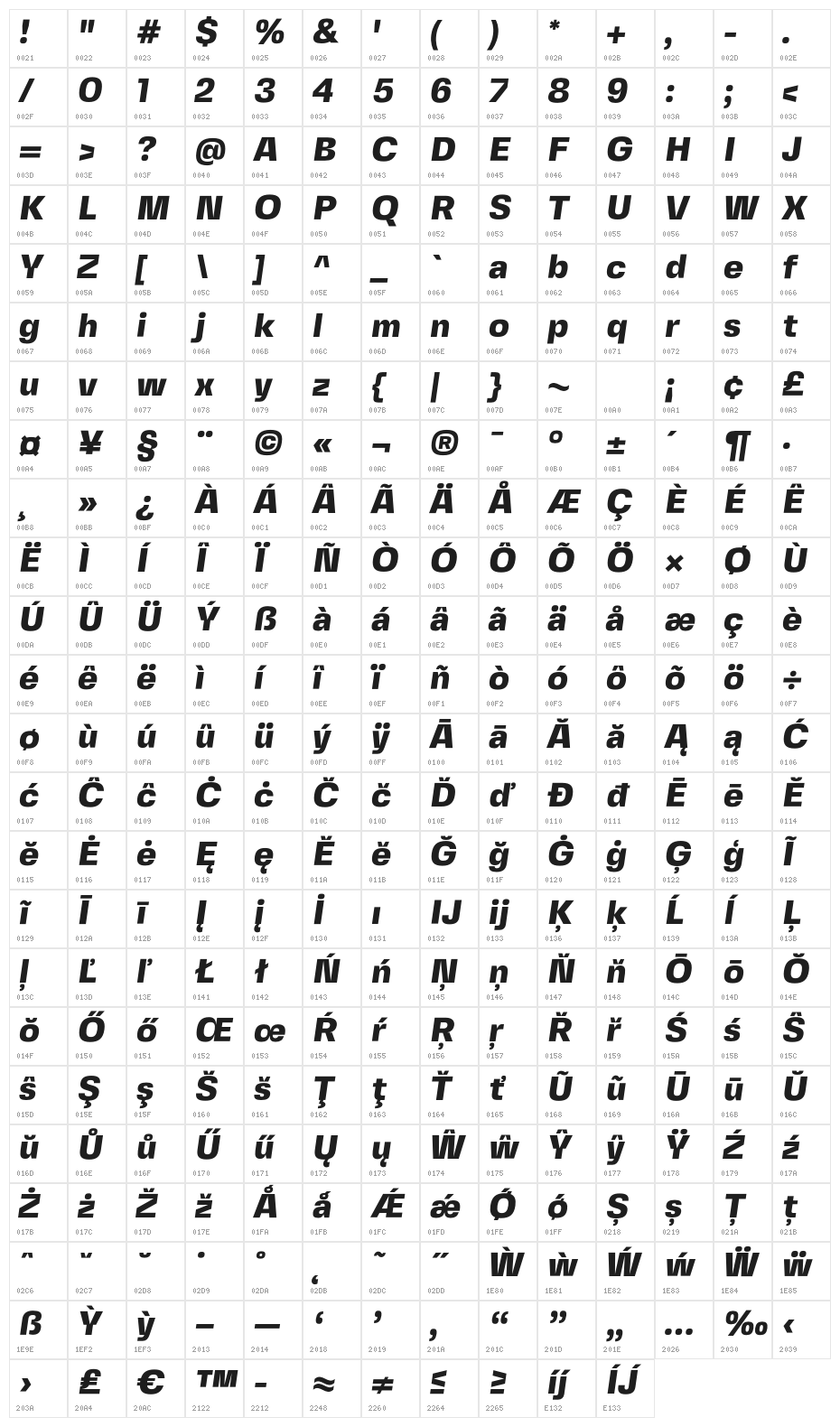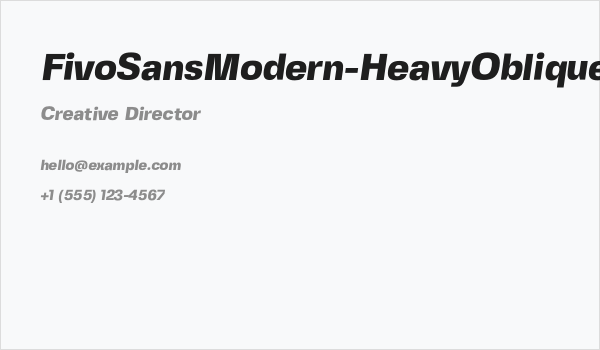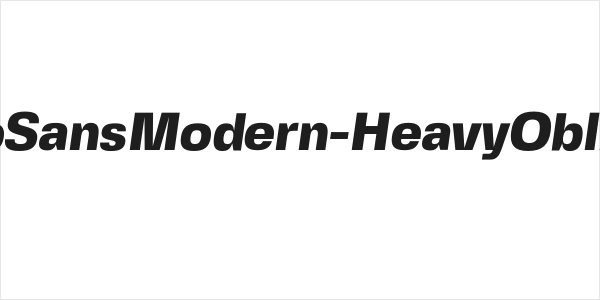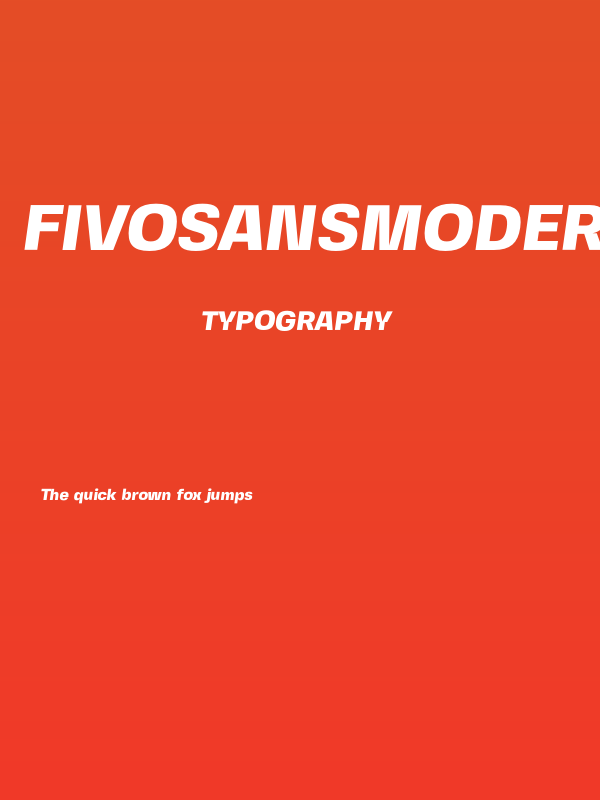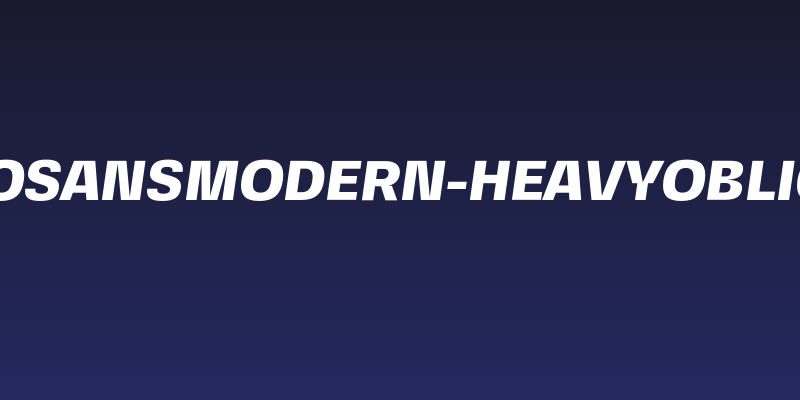
FivoSansModern-HeavyOblique Font
FivoSansModern-HeavyOblique Description
This font features a bold and assertive style with a modern sans-serif design. The characters are heavily oblique, giving them a dynamic and forward-leaning appearance. The strokes are thick and consistent, providing a strong visual impact. The uppercase and lowercase letters maintain a uniform width, enhancing readability. The numerals are clear and distinct, matching the boldness of the alphabet. Special characters are well-defined, ensuring versatility in various applications. Overall, this font exudes a contemporary and robust aesthetic, suitable for making a strong statement.
| Use Case | Headlines, Logos, Advertising |
| Proposed Projects | Ideal for branding, advertising, headlines, and any project requiring a strong visual impact. |